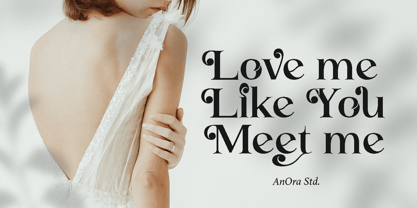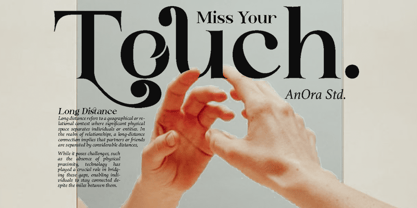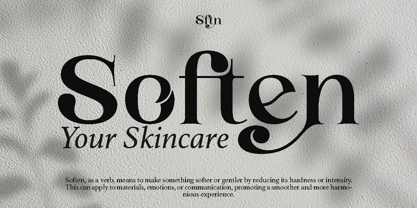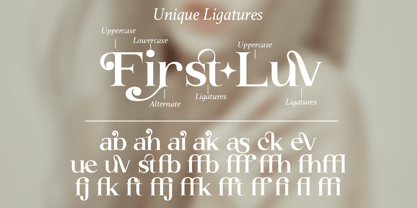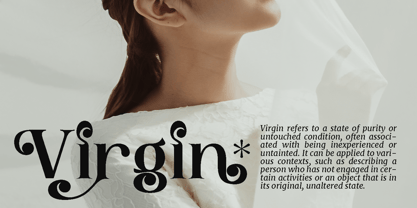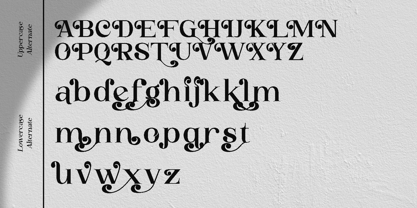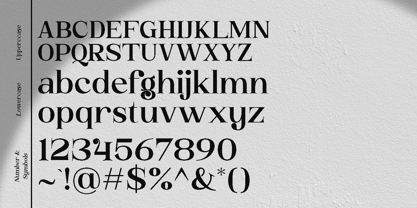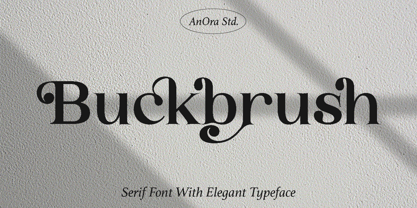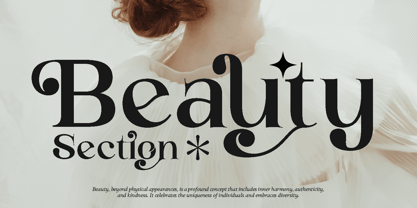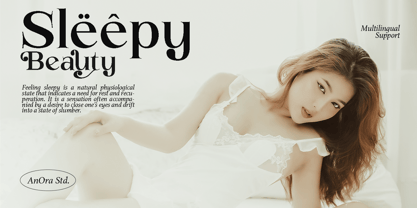
Buckbrush
by Anora Studio
The Buckbrush Font Family was designed by Sigit Mulyo Utomo and published by Anora Studio. Buckbrush contains 1 styles. More about this family
Buckbrush is an Elegant Playful Serif Font with Huge Stylistic Alternates.
Designers: Sigit Mulyo Utomo
Foundry: Anora Studio